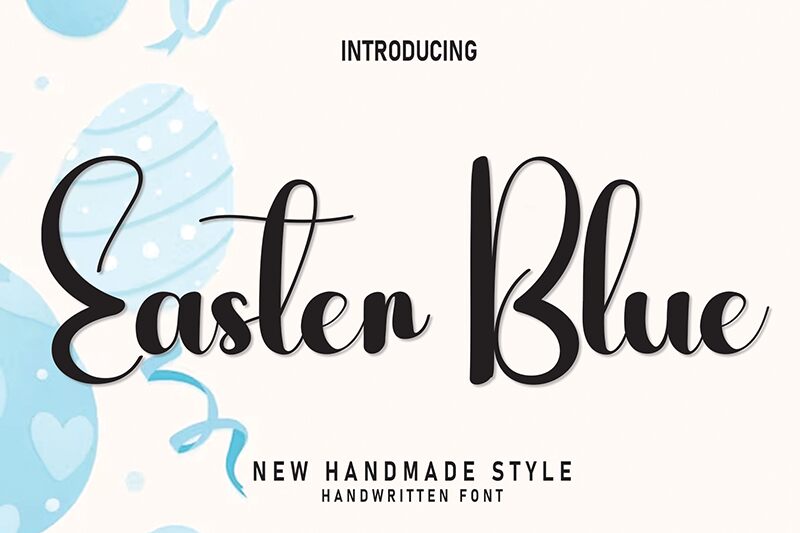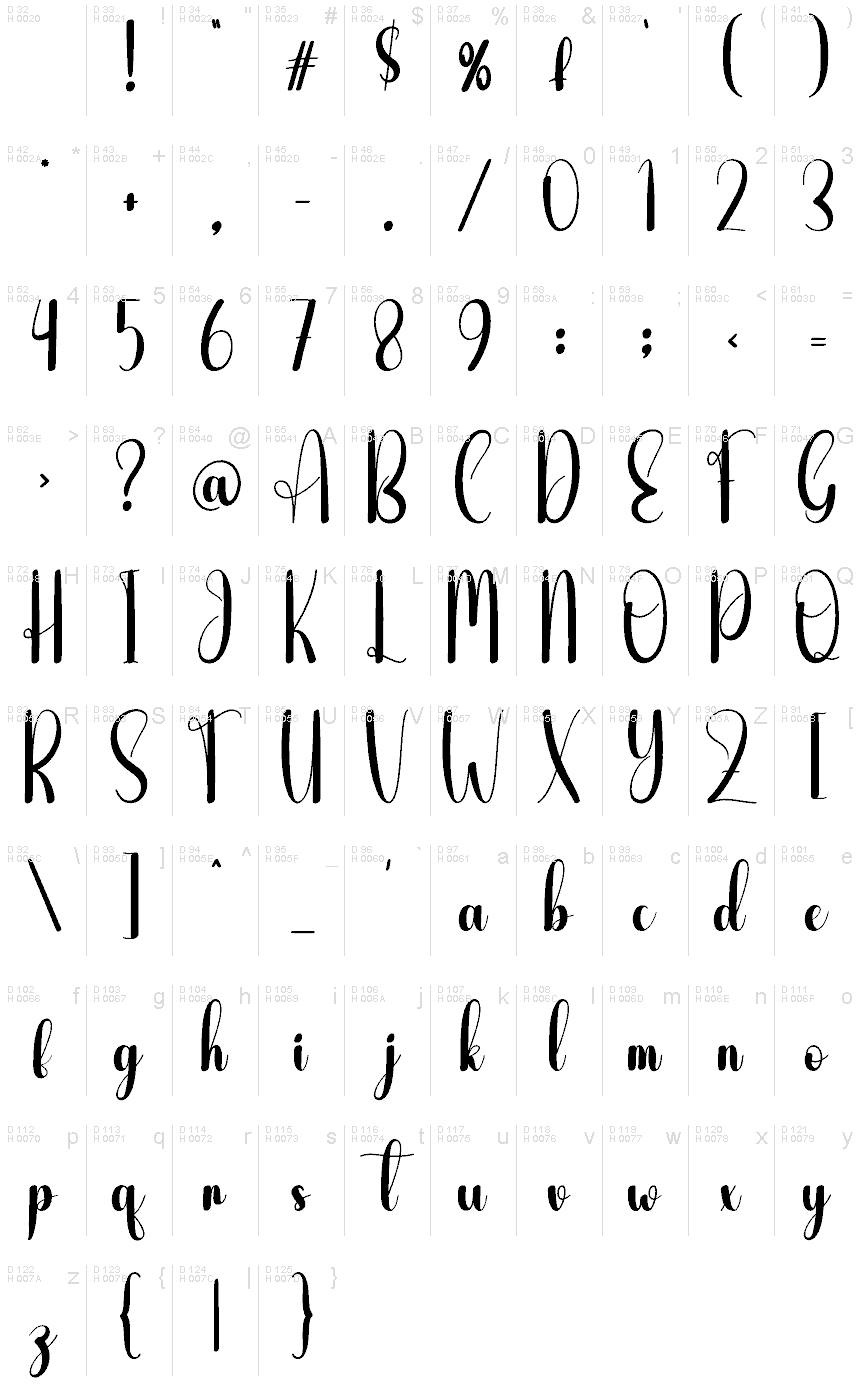
Easter Blue
Easter Blue font by Andi Moz is a condensed handwritten font that exudes sweetness and friendliness. It is a playful display font with elegance, expressiveness, and fluid shapes which together give it a stylish look. Cute and fun, this lightweight font will have its small light letters, characterized by thin strokes, bring attention to the background items of your design.
Use this free handwritten font in editorial and non-editorial projects. Ideal uses include wedding invitations, cards, logo design or branding of sweet shops or pastry cafes. Also employ in package design for kids’ items or candy boxes. Posters for cute events such as children’s birthday parties are also great choices along with merchandise like tote bags or pencil cases. Social media arts often work well when combining Easter Blue (display) with others perhaps stronger fonts used for the body text.